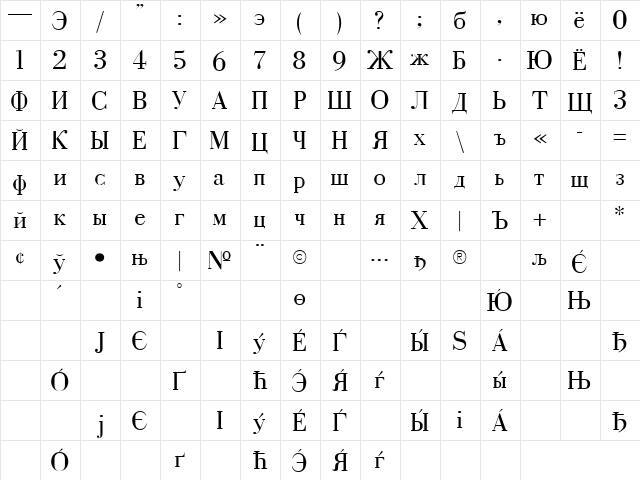
Dearborn Regular
Design Context for Dearborn Typeface
Dearborn offers clean, dependable letterforms without strong stylistic allegiance, making it a practical choice for designers who need flexibility.